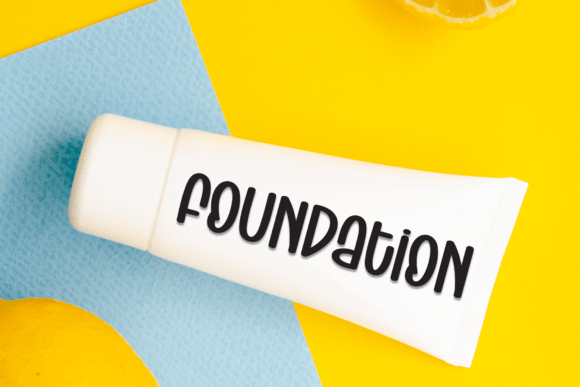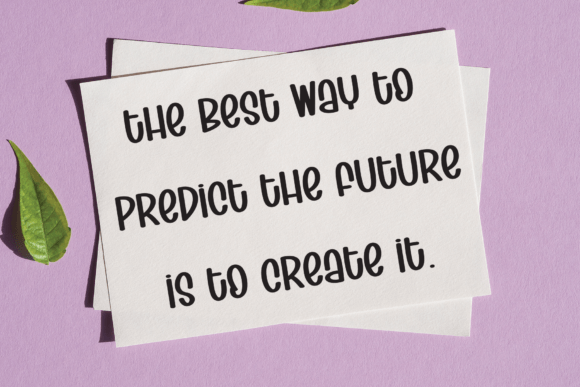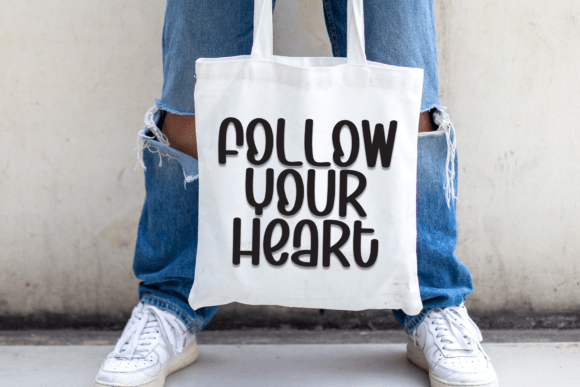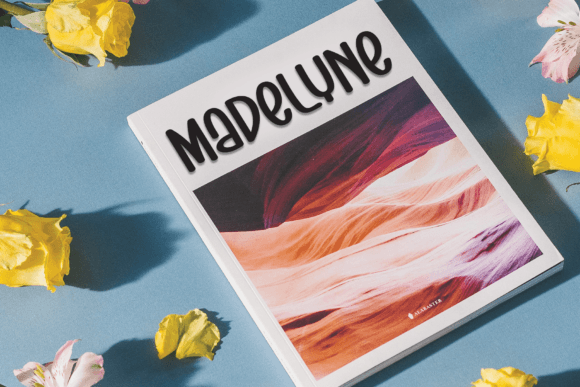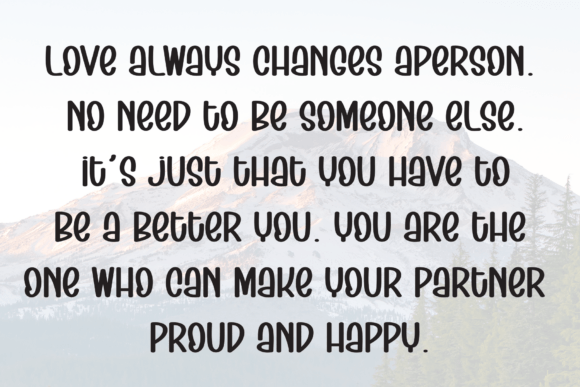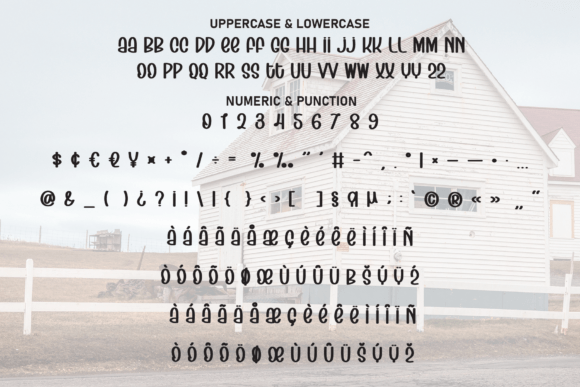
American Farmhouse Font: Make a Statement with Bold Display Typography
Are you looking for a font that commands attention and makes a statement? Look no further than the American Farmhouse Font, a bold display font designed to bring power and personality to your designs. With its strong lines, striking shapes, and impactful presence, this font is perfect for headlines, posters, branding, and any design that needs to stand out.
Confidence and Modernity in Typography
The American Farmhouse Font boasts a confident and modern style that ensures your message is seen loud and clear. Its unique blend of rustic charm and contemporary flair makes it an excellent choice for designers and crafters looking to add a touch of sophistication to their work. Whether you’re creating a logo, brochure, or social media graphic, this font is sure to elevate your design and make it more engaging.
Key Features of American Farmhouse Font
- Strong Lines and Striking Shapes: The American Farmhouse Font features bold, sturdy lines and striking shapes that give it an edgy, modern look.
- Impactful Presence: This font has a commanding presence that demands attention and makes a lasting impression.
- Perfect for Headlines and Posters: With its bold and eye-catching design, the American Farmhouse Font is ideal for headlines, posters, and other large-format designs.
- Branding and Identity: Use this font to create a strong brand identity that reflects your values and personality.
- Modern and Confident Style: The American Farmhouse Font exudes confidence and modernity, making it perfect for designs that require a fresh and contemporary look.
Why Choose American Farmhouse Font?
There are many fonts available that claim to be bold and attention-grabbing, but the American Farmhouse Font stands out from the rest. Here are just a few reasons why:
- Unique Design: The American Farmhouse Font has a distinctive design that sets it apart from other fonts.
- Versatility: This font can be used for a wide range of design projects, from print materials to digital graphics.
- Easy to Read: Despite its bold design, the American Farmhouse Font is easy to read, even at smaller sizes.
- High-Quality Typography: This font is crafted with attention to detail and a focus on quality, ensuring a professional finish for your designs.
Using American Farmhouse Font in Your Designs
The American Farmhouse Font is an incredibly versatile font that can be used in a variety of design projects. Here are a few ideas to get you started:
- Headlines and Titles: Use the American Farmhouse Font to create bold and eye-catching headlines and titles.
- Posters and Flyers: This font is perfect for posters and flyers that need to grab attention and make a statement.
- Branding and Logo Design: Use the American Farmhouse Font to create a strong brand identity and logo.
- Social Media Graphics: This font is great for social media graphics, including Facebook posts, Instagram stories, and Twitter headers.
In conclusion, the American Farmhouse Font is a bold and attention-grabbing font that’s perfect for designers and crafters looking to make a statement. With its strong lines, striking shapes, and impactful presence, this font is sure to elevate your designs and make them more engaging. Whether you’re creating headlines, posters, branding, or social media graphics, the American Farmhouse Font is an excellent choice.